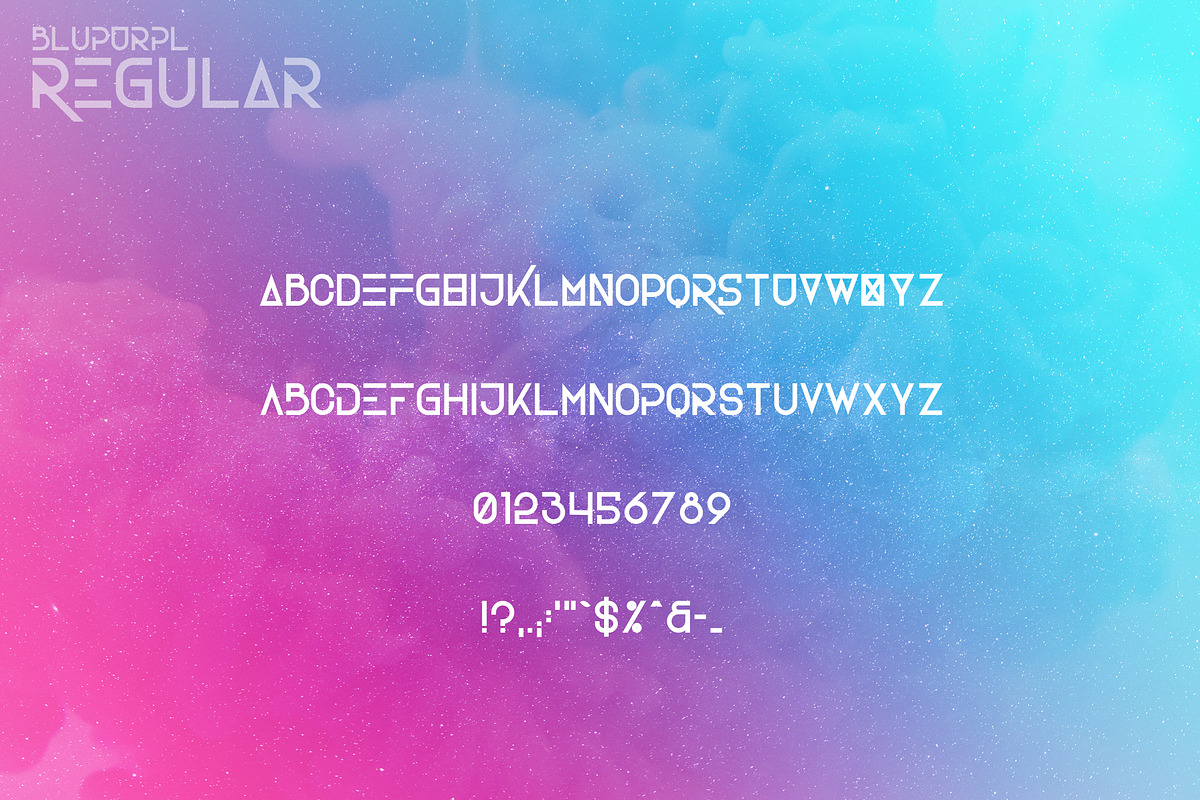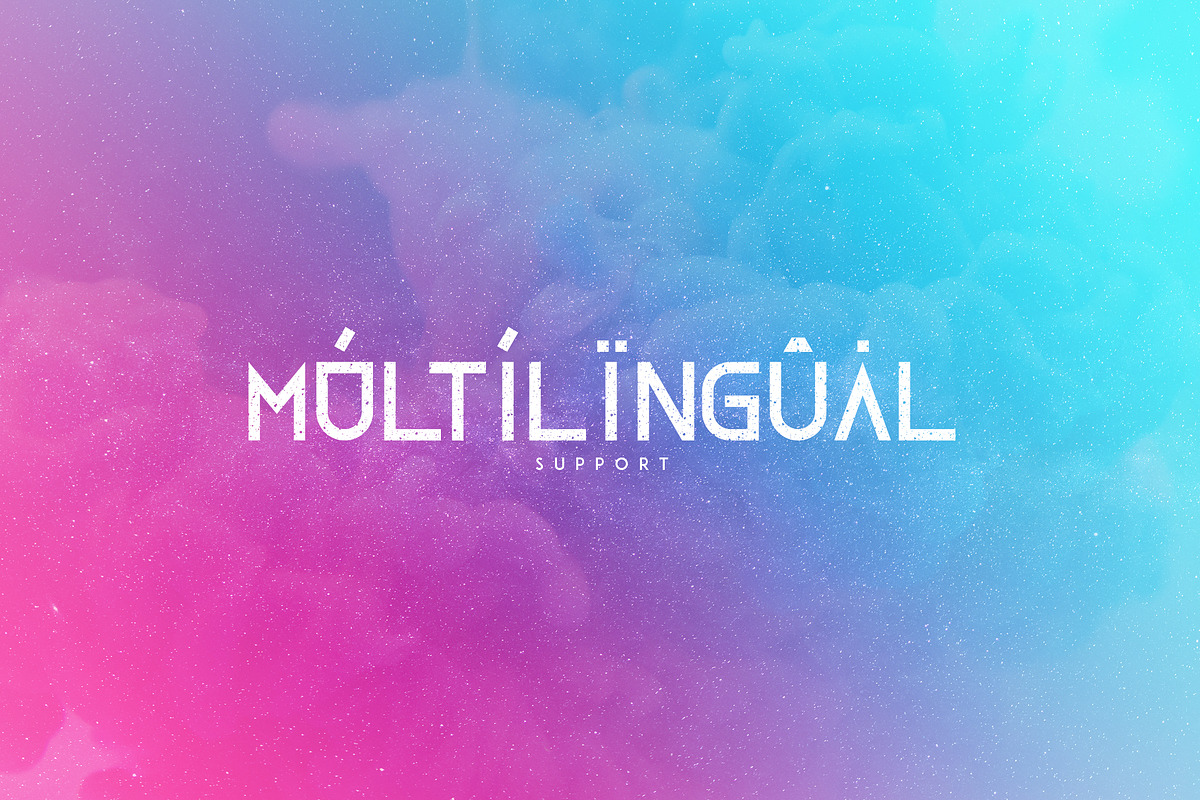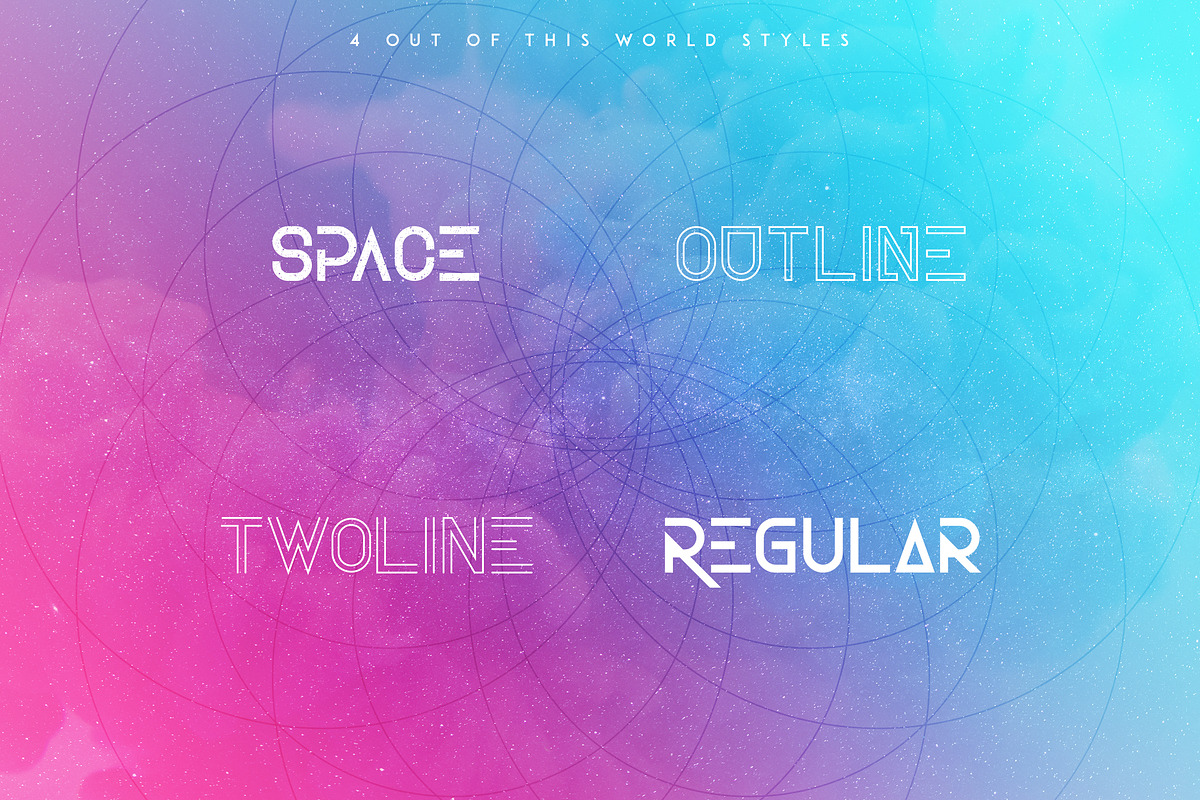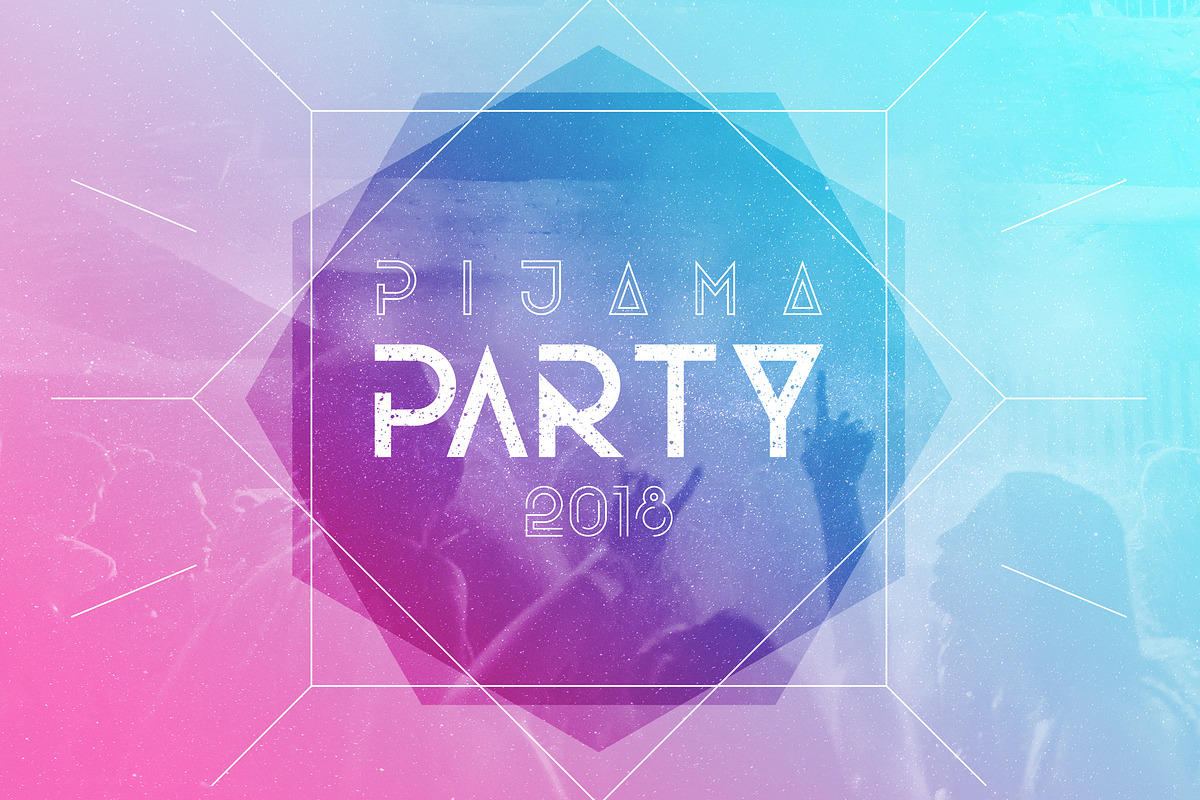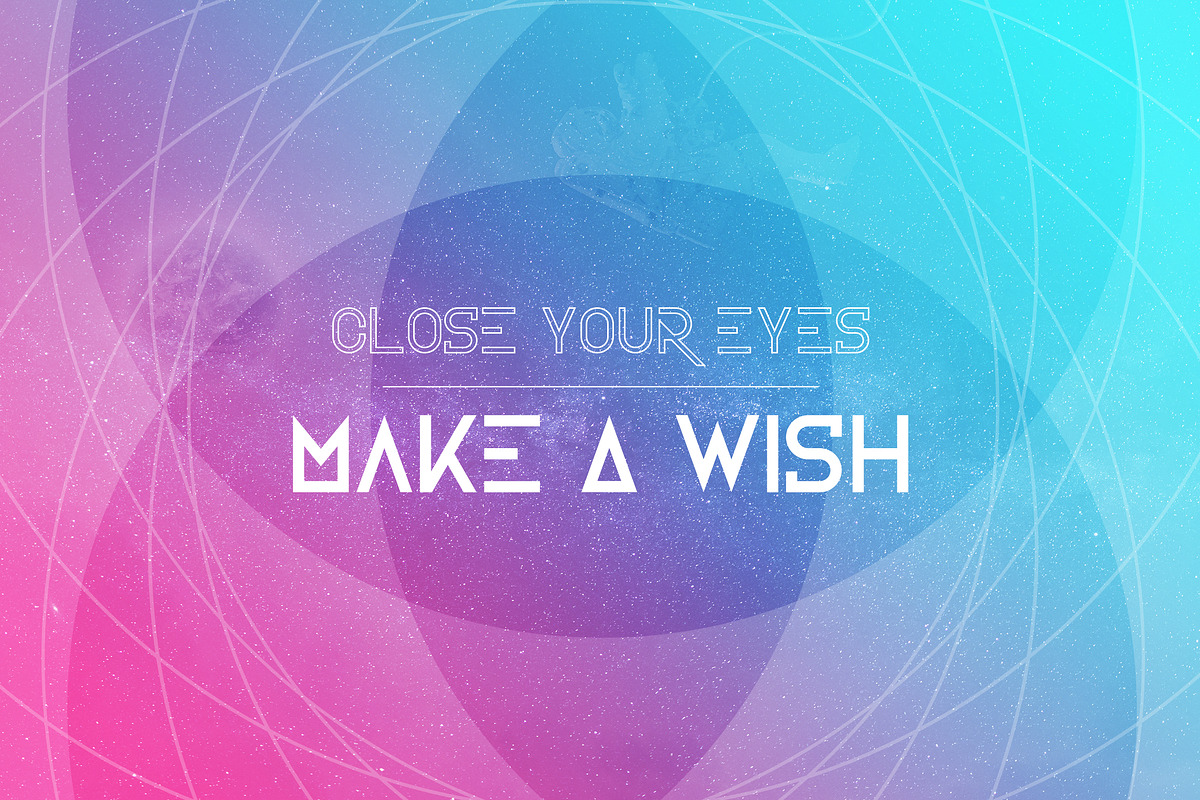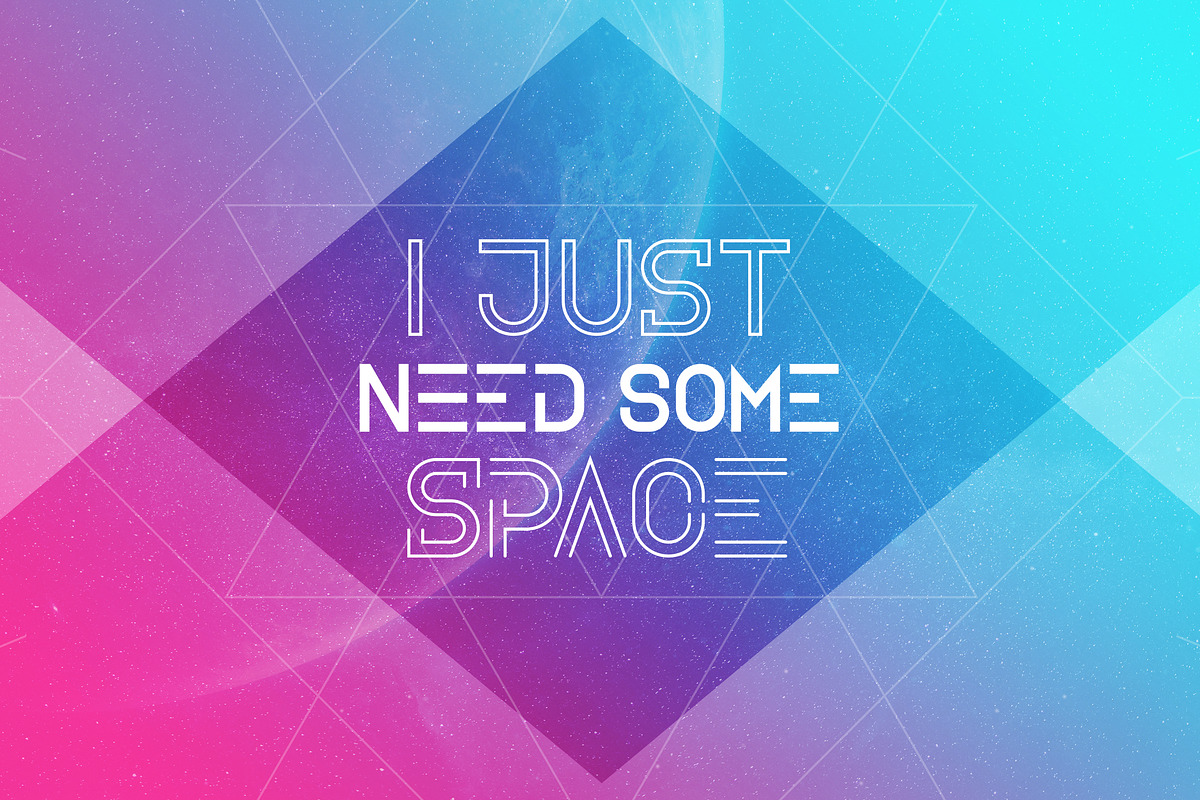
BluPurpl is bold, futuristic sans serif typeface with 4 fonts. multilingual support and extras. It's a very versatile font that works great in large and small sizes.
BluPurpl is perfect for branding projects, home-ware designs, product packaging, magazine headers - or simply as a stylish text overlay to any background image.
- multilingual support and extras.
- BluPurpl Regular
- BluPurpl Outline
- BluPurpl Space
- BluPurpl Twoline